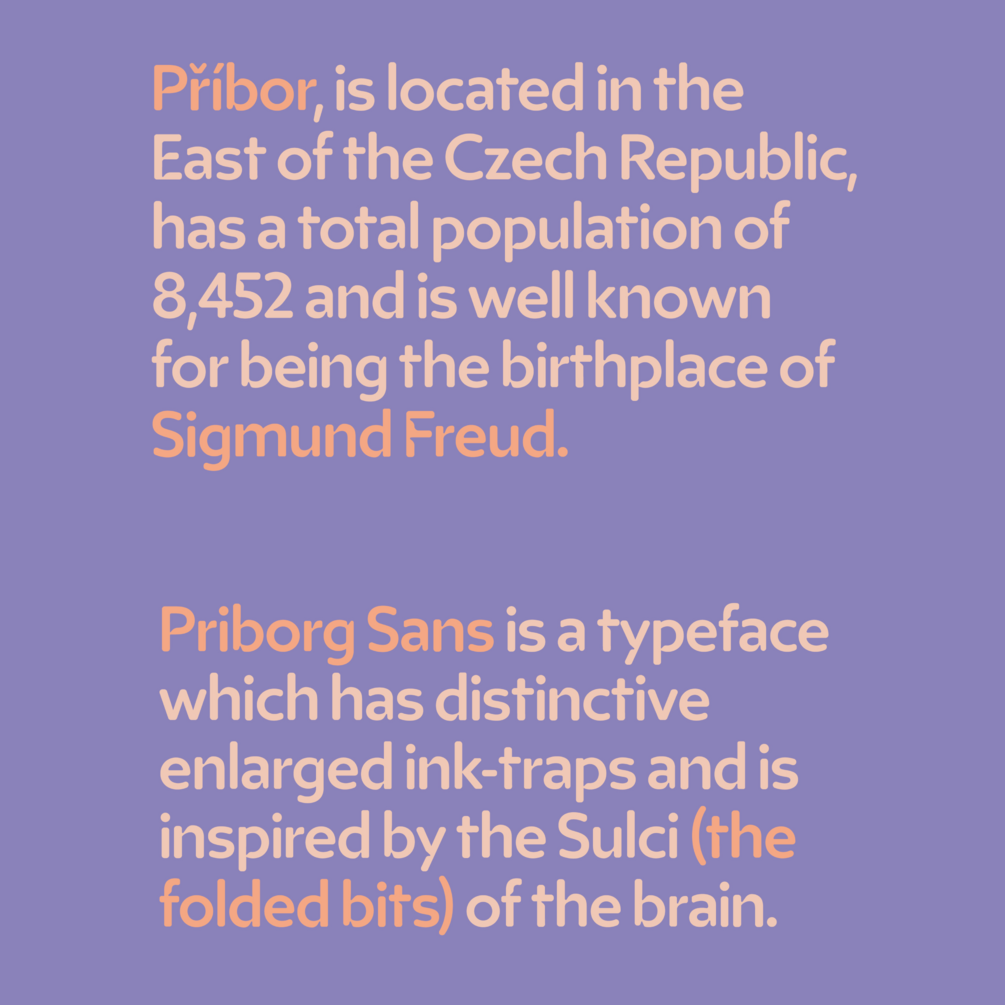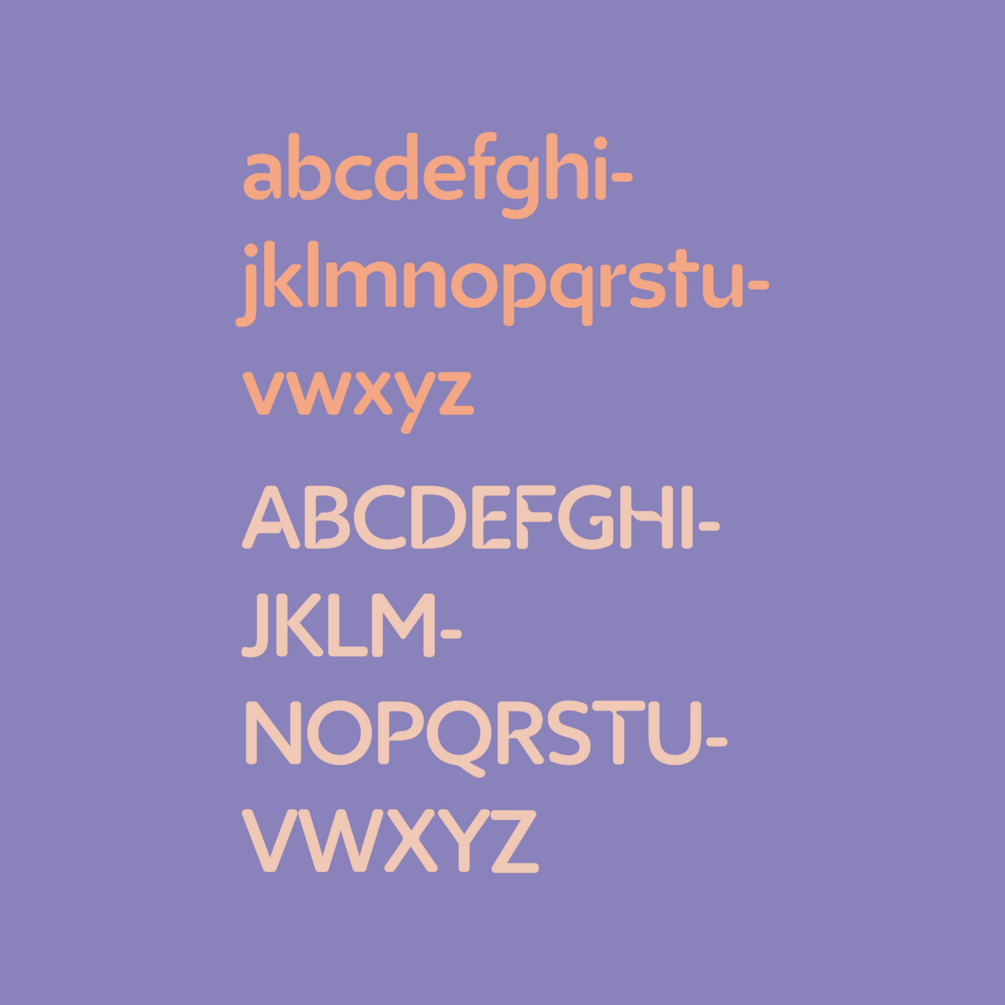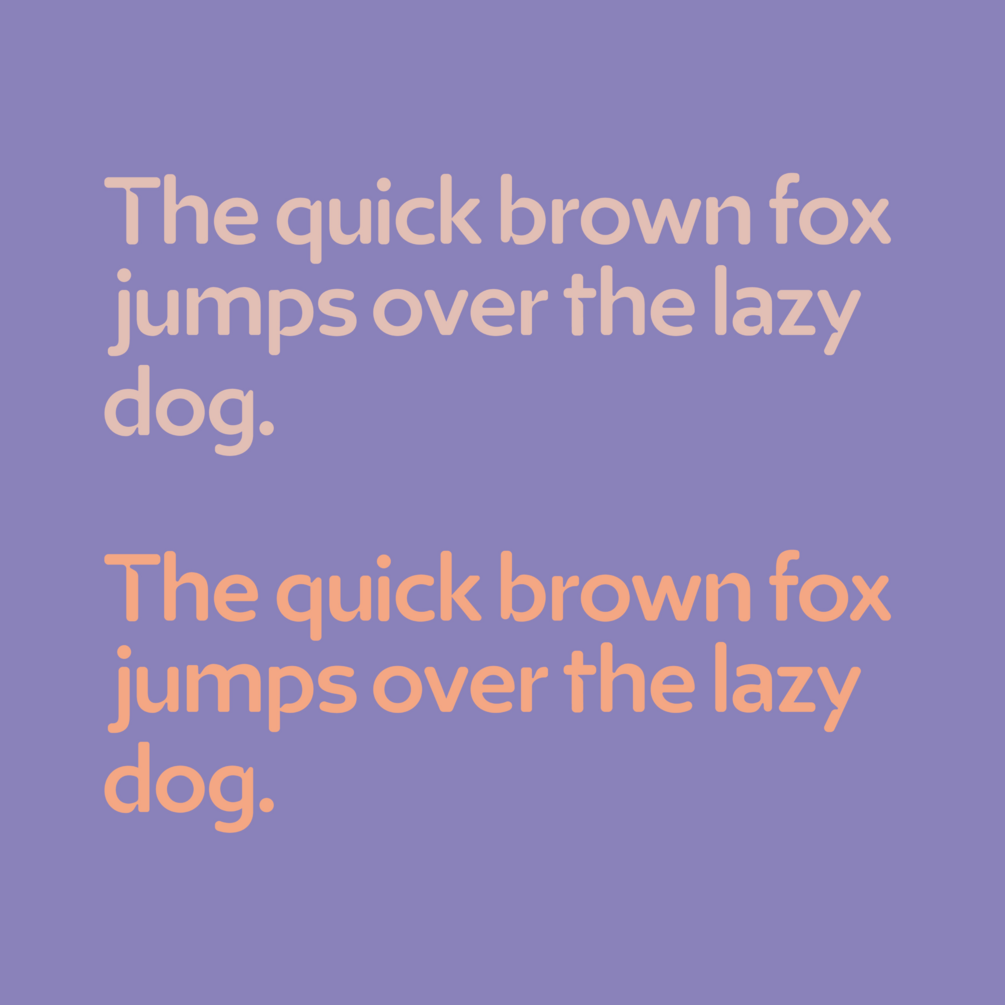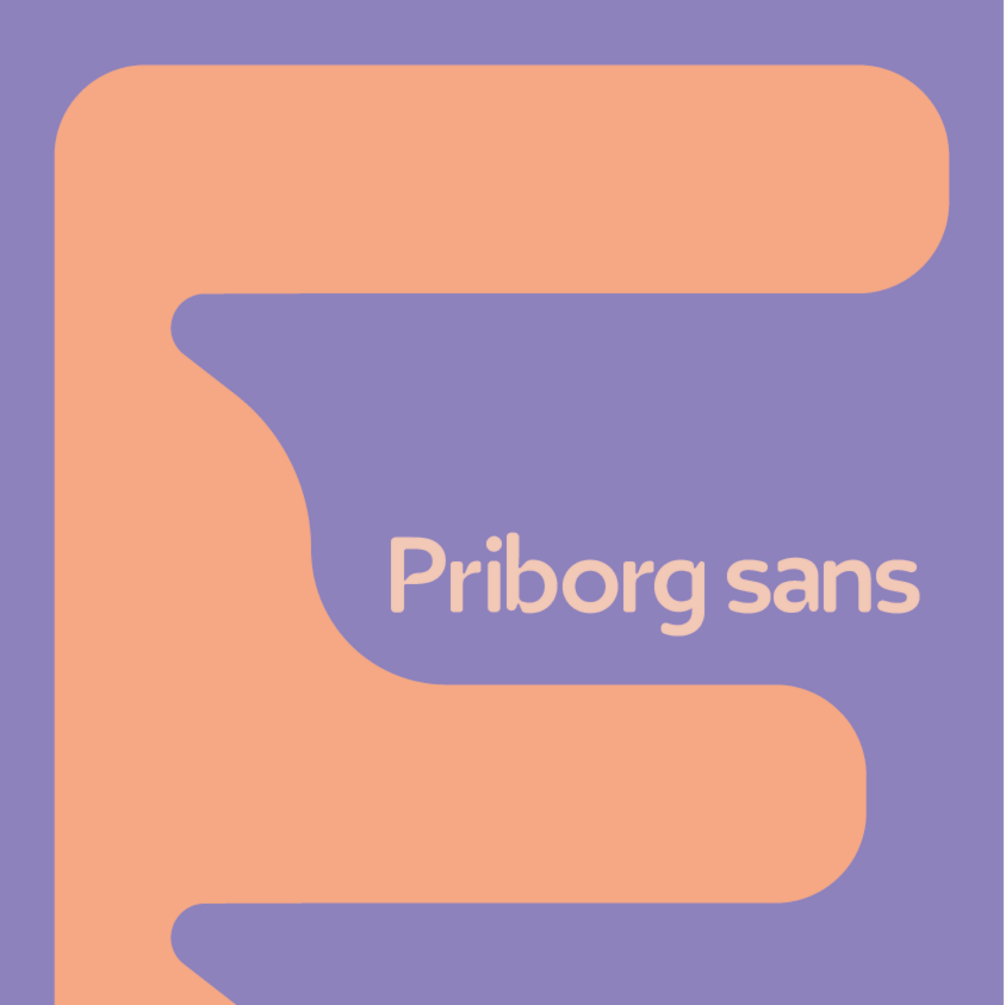
Priborg Sans
Priborg sans was designed as a part of a university project, and is inspired by the folded bits of the human brain.
The name is inspired comes from the city of Příbor, located in the Czech Republic, and famously the birthplace of the psychiatrist Sigmund Freud.